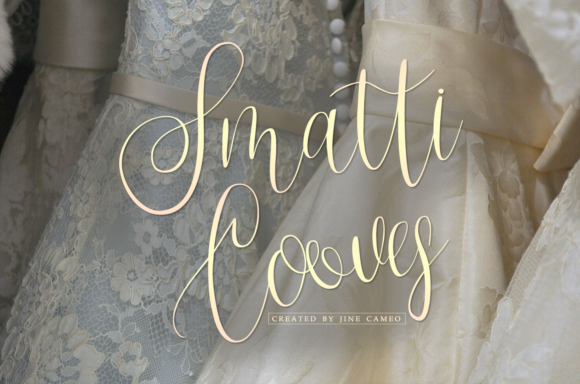
Introducing Smatti Cooves Font: A Timeless Masterpiece of Enchanting Elegance
In a digital world where visual aesthetics reign supreme, typography holds the power to captivate, intrigue, and inspire. Amidst a sea of ordinary fonts, Smatti Cooves Font emerges as a beacon of distinction, an exquisite gem that elevates design to an art form. Created by the visionary enyaaa90, this script font is a symphony of charm and elegance, a testament to the enduring beauty of classic calligraphy.
Smatti Cooves Font is a visual masterpiece, a font that dances across the screen with a varying baseline and smooth, graceful lines. Its gorgeous glyphs and stunning alternates add a touch of whimsy and intrigue, inviting the reader to explore the depths of their imagination. With Smatti Cooves Font, your designs will transcend the ordinary, reaching new heights of sophistication and allure.
Whether you're a seasoned designer or just starting your creative journey, Smatti Cooves Font is the perfect companion for a wide range of projects. From branding and headings to wedding designs, invitations, signatures, logos, and labels, this font adds a touch of magic to every word it graces. Its versatility knows no bounds, seamlessly adapting to your unique vision and bringing your ideas to life with unparalleled elegance.
Embrace the timeless beauty of Smatti Cooves Font and watch your designs blossom into works of art. Its charm will captivate your audience, leaving them spellbound by the sheer brilliance of your creations. Discover the limitless possibilities that await you with this extraordinary font, and embark on a journey of design excellence that will leave a lasting impression.